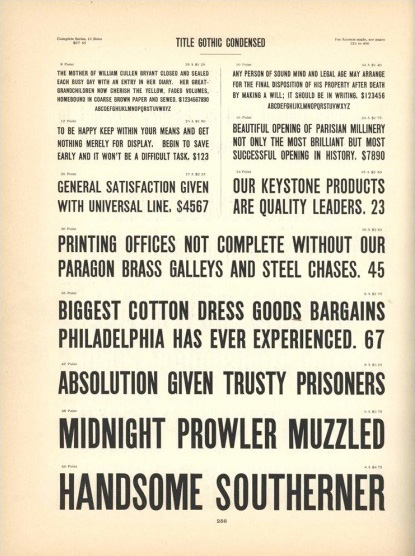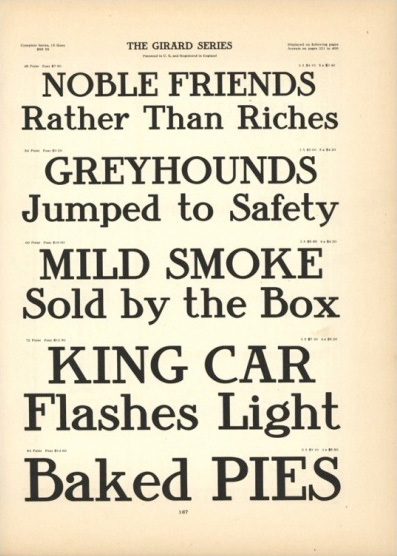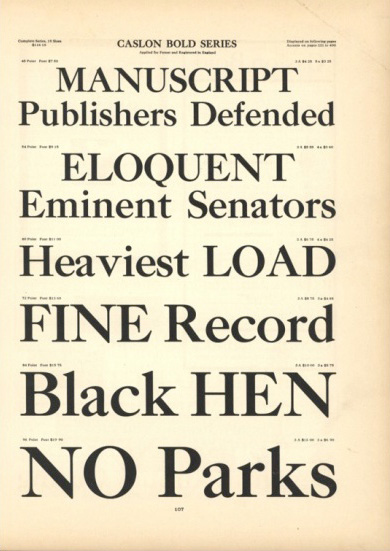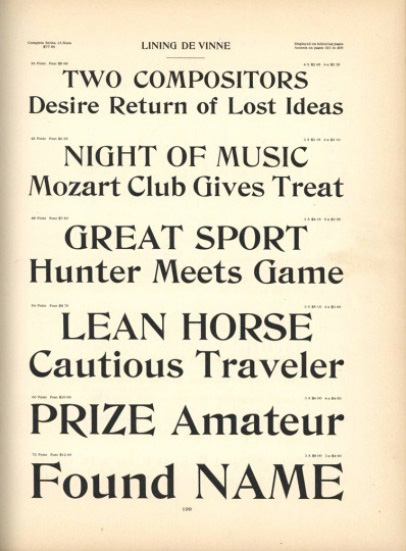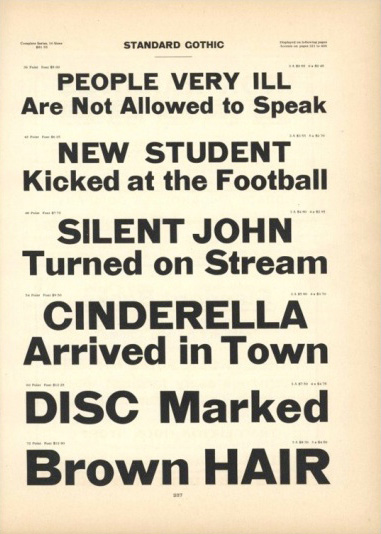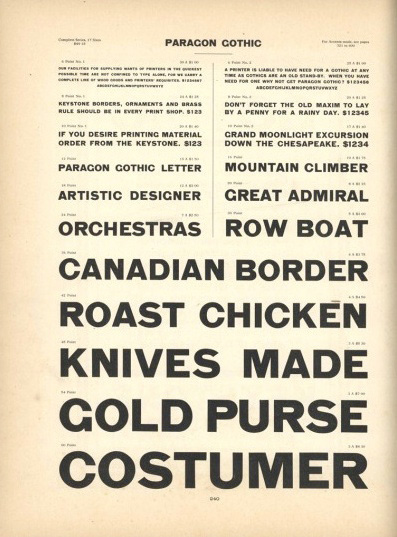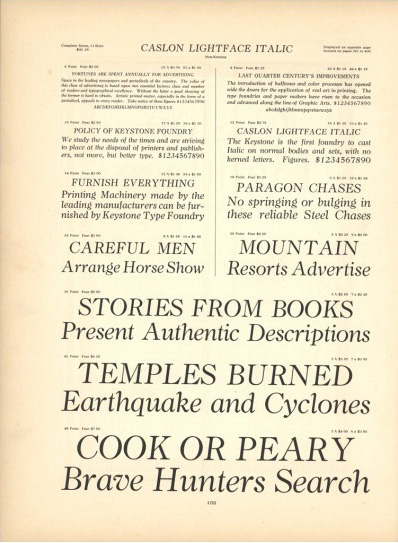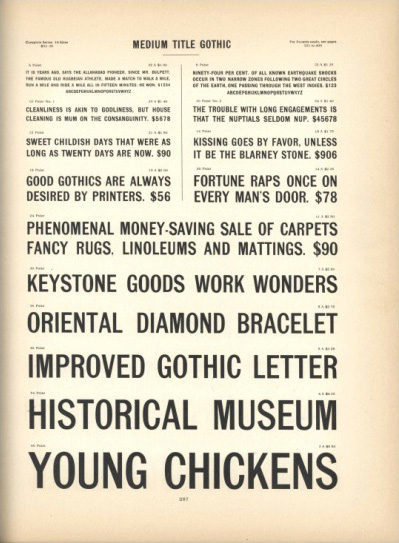
Step back in time with the typeface demos of Keystone Type Foundry
The Keystone Type Foundry at 734 Sansom street is run by the Mather Manufacturing Company, and produces many fine faces of type”. This is how an anonymous article in The Inland Printer back in September, 1890, describes an all-American type foundry based in Philadelphia. The former N. W. Ayer & Co. advertising agency, Keystone Type Foundry was established in 1888, had in 1884 purchased the printer’s supply house, Mather Manufacturing Company was absorbed by American Type Founders. Once upon a time, this business trust was representing about 85% of all type manufactured in the United States being the dominant American manufacturer of metal type from its creation in 1892 until at least the 1940s; it continued to be influential into the 1960s.
Thanks to the Tumblr of the University of Wisconsin-Milwaukee, a collection of type specimen pages, published in 1910 by the Keystone Type Foundry, reveals the somewhat interesting, weird, strange, almost “poetic vision of daily life in 1910” in the company’s demonstration headlines. “The Keystone Type Foundry, like other vendors of type, published specimen books to illustrate its wares and distributed them to printers who were choosing equipment. The company had outposts in New York, Atlanta, Chicago, Detroit, and San Francisco (as well as Philadelphia), but clients who lived outside of major metropolitan areas could order supplies by mail” comments Slate’s Rebecca Onion on this trip back to the age of innocence.